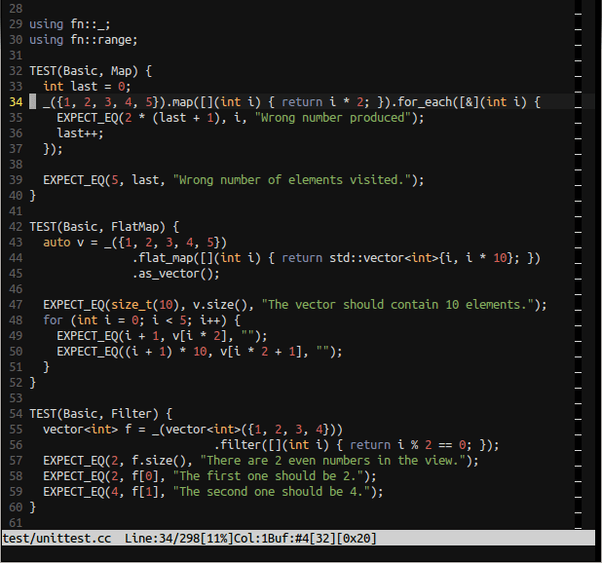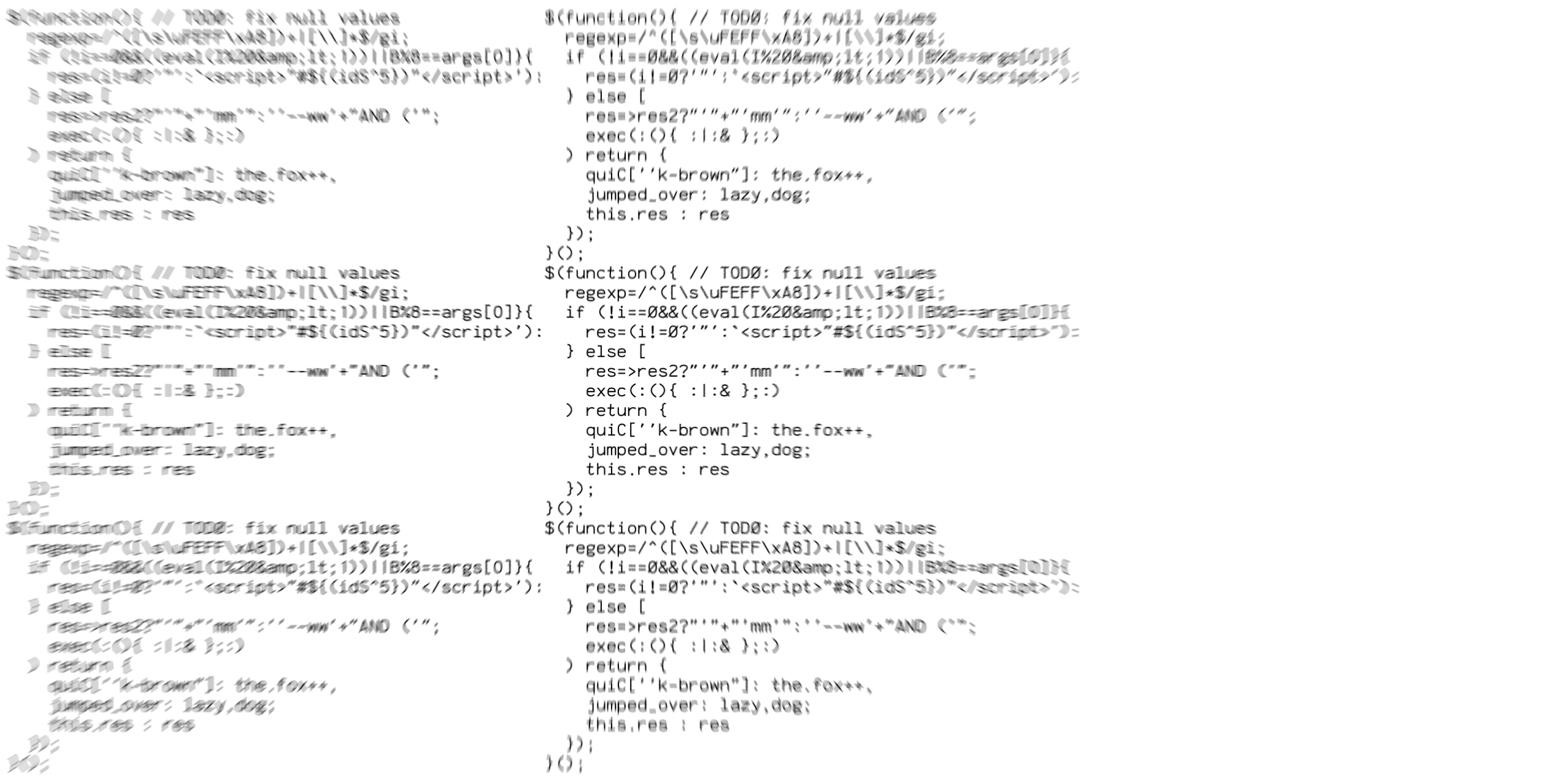
Incredible Best Free Programming Font With New Ideas, Free monospaced font with programming ligatures. Its styles are regular, bold, oblique and retina versions, it supports latin, greek, cyrillic, ligature, alternate and powerline glyphs.
It's a free developer code that works with various editor support like visual studio code and eclipse. On apr 6th, 2022 fonts. Inconsolata, also free, comes with ligatures for a great coding experience, it. You can combine it with font awesome to see icons directly in your code.
Inconsolata, also free, comes with ligatures for a great coding experience, it. While subjective, i've comprised the list of free and paid fonts that make legibility a high priority (bonus points for the font looking beautiful as well). Comes with 4 style and fixed width designs. It’s very easy to get started and combine with vs code.
Dina is my favorite monospace font and, for clarity, it is hard to beat ( download dina ). Inconsolata, also free, comes with ligatures for a great coding experience, it. 10 best fonts for programming with vscode source code pro. Cousine is a sans serif that matches metrically to the width of courier new. The 15 Best Free Monospace Fonts for Coding & Programming.
Here is a list of my favorite programming fonts that i have tested. The concept behind fira code is simple: Inconsolata, also free, comes with ligatures for a great coding experience, it. Mark simmonson offer many fonts too. The 10 Best Free Fonts for Coding & Programming Best free fonts.
You can combine it with font awesome to see icons directly in your code. Proggy is loved in developer circles for its simple but effective look, especially for c. Being a sans serif, cousine lacks the harshness of. Best free coding font recommendations for programming in editors like vscode. Best free programming fonts to use in 2020.
Ubuntu mono is a workhorse of a font that is both incredibly readable, clear and crisp on various resolutions, and honestly, just looks really cool. 10 best fonts for programming with vscode source code pro. Its styles are regular, bold, oblique and retina versions, it supports latin, greek, cyrillic, ligature, alternate and powerline glyphs. Every font is free to download! 11 Best Free Programming Fonts in 2020 by Mateusz Hadryś Medium.
Mark simmonson offer many fonts too. As a web designer or developer, you’ll find some of the best free icons, stock photos, fonts, free wordpress themes, userful wordpress plugins, best jquery plugins,. Home about projects blog community wall. It includes 12 different styles of fonts featuring more than 2700 glyphs. 11 Best Free Programming Fonts in 2020 by Mateusz Hadryś Medium.
Versatile typeface for code, from code. Free monospaced font with programming ligatures. On apr 6th, 2022 fonts. It’s very easy to get started and combine with vs code. Finding the Best Programming Font / Webagility.
You May Not Give Much Thought To The Font You Currently Use For Coding.